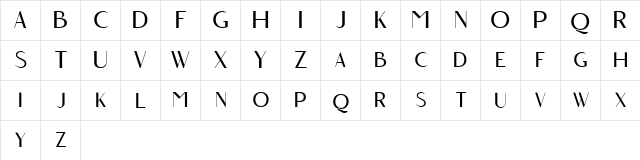
Angelic Bonques Free Sans
| Style | Sans |
| Foundry | Craft Supply Co |
Design Context for Angelic Bonques Free Typeface
Angelic Bonques Free offers clean, dependable letterforms without strong stylistic allegiance, making it a practical choice for designers who need flexibility.